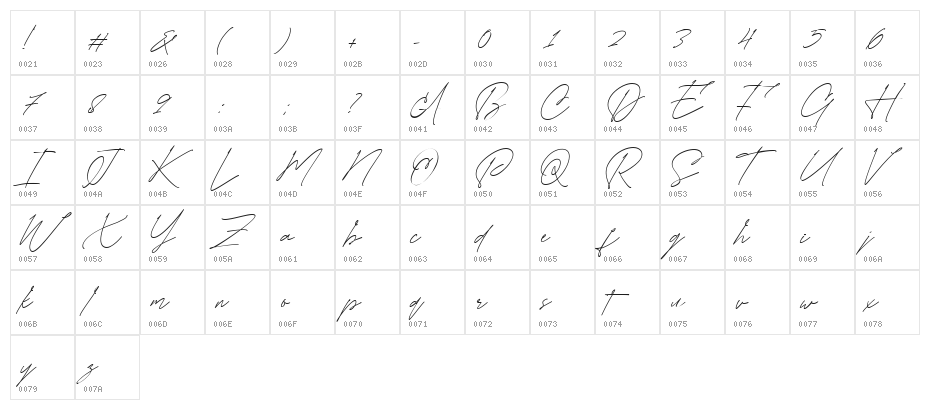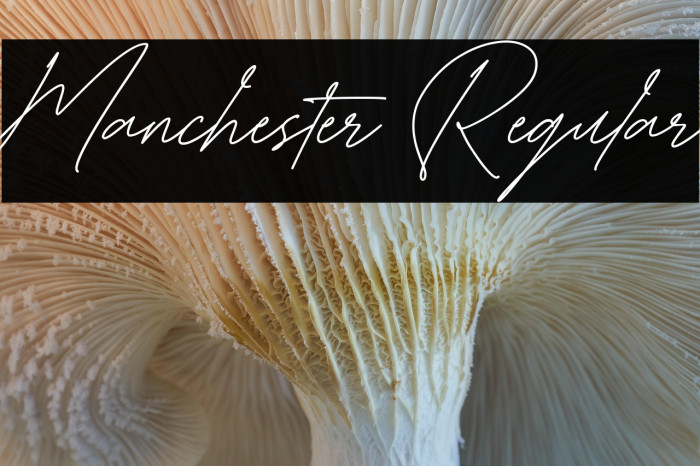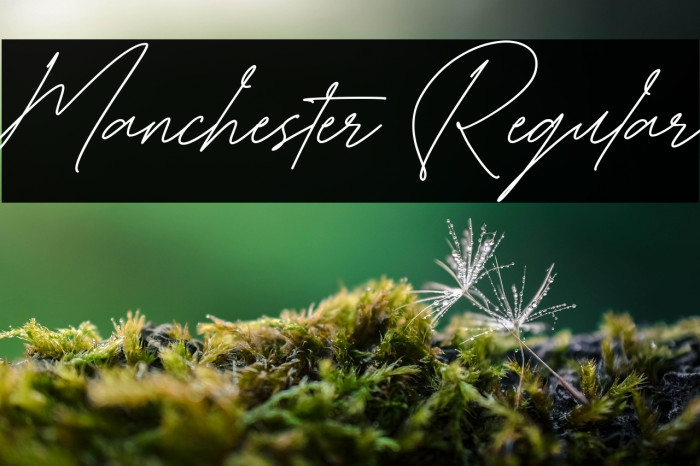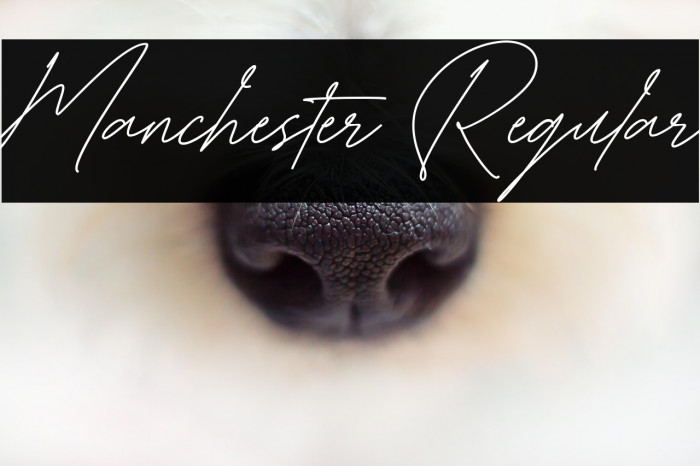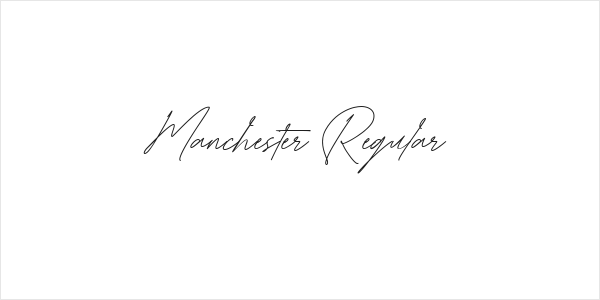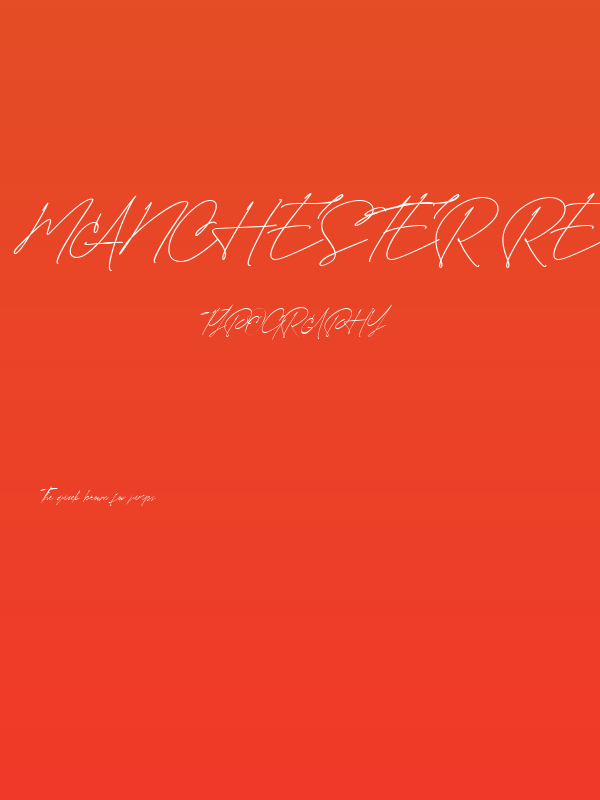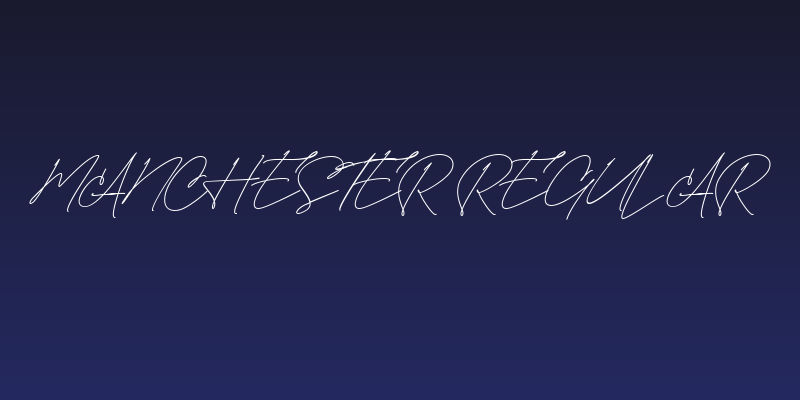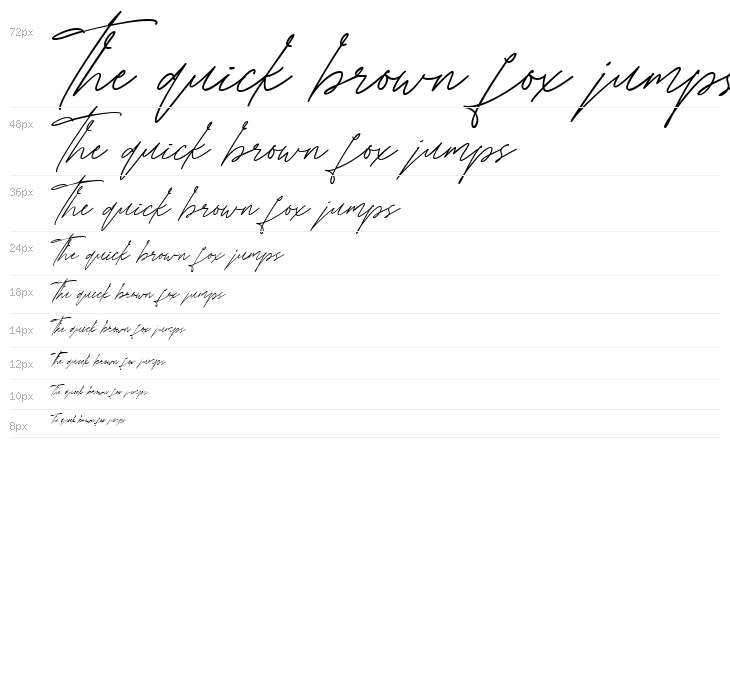
Manchester Regular Font
Manchester Regular Description
A flowing, cursive script font with a handwritten style, featuring elegant and connected letterforms.
Use CaseLogos, Invitations, Greeting cards
Proposed ProjectsInvitations, greeting cards, personal branding.